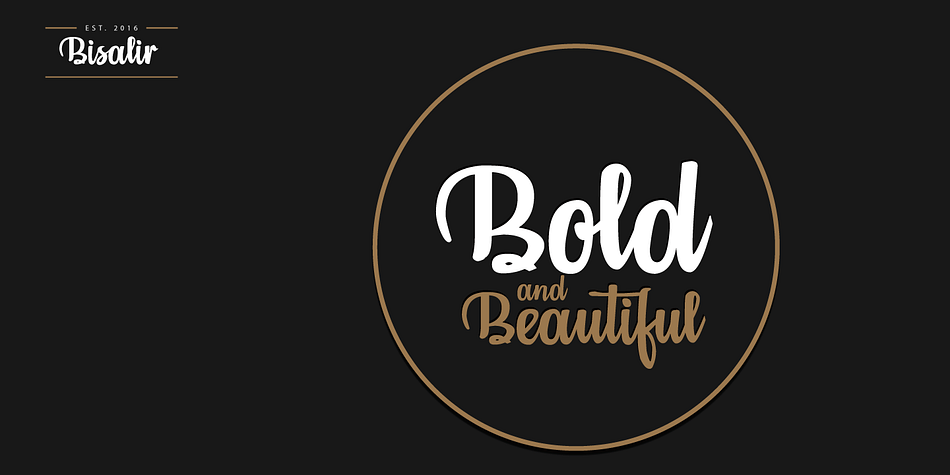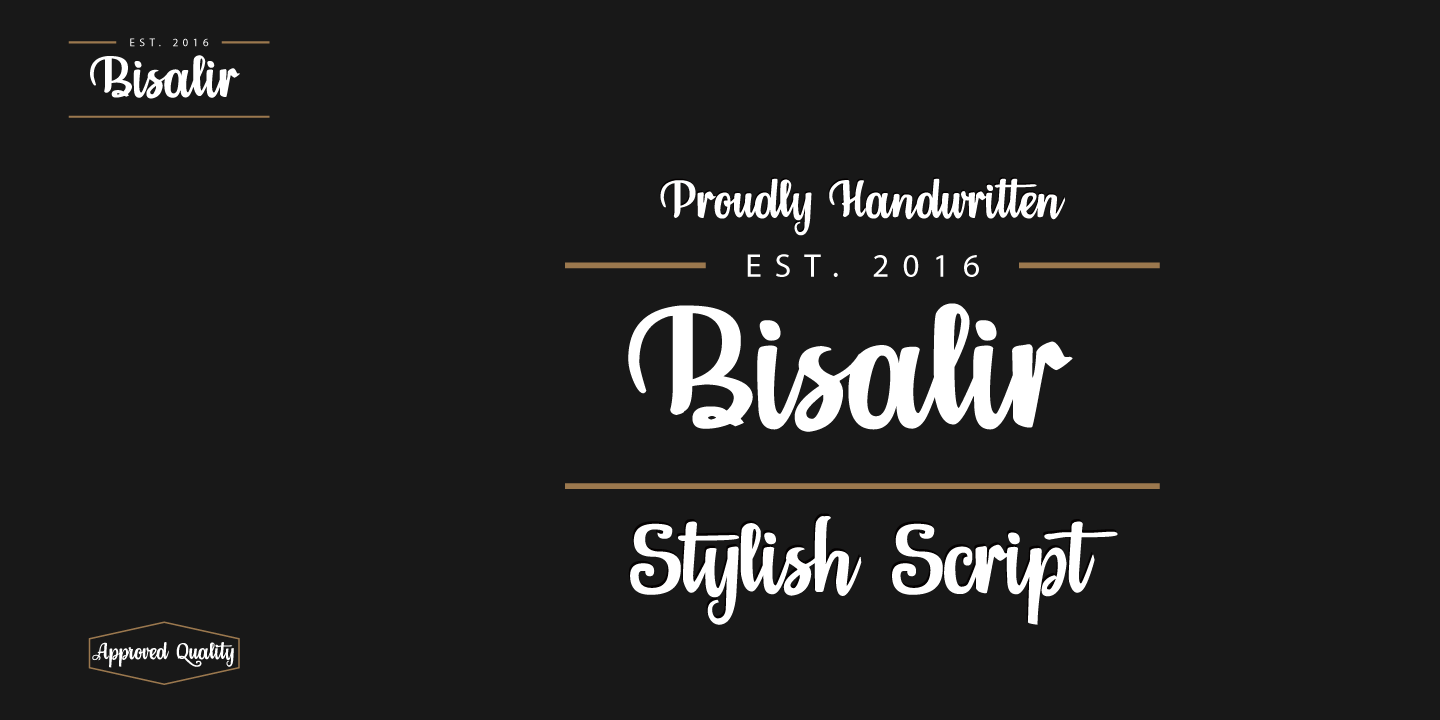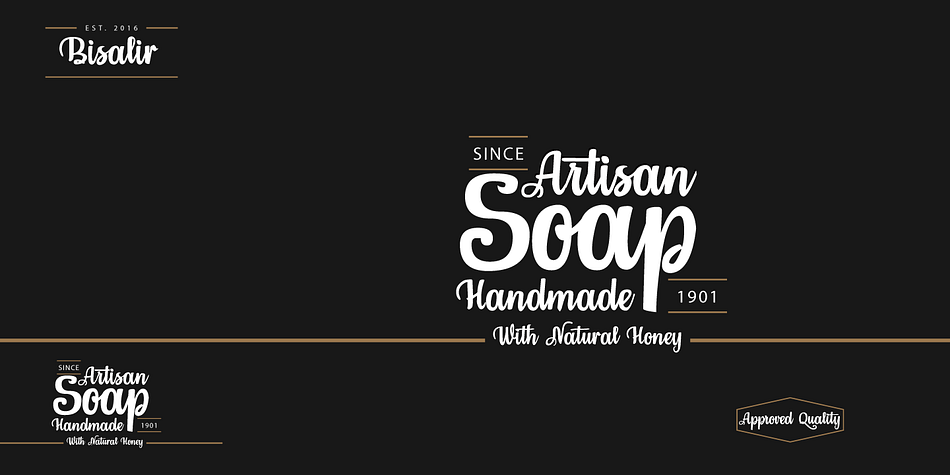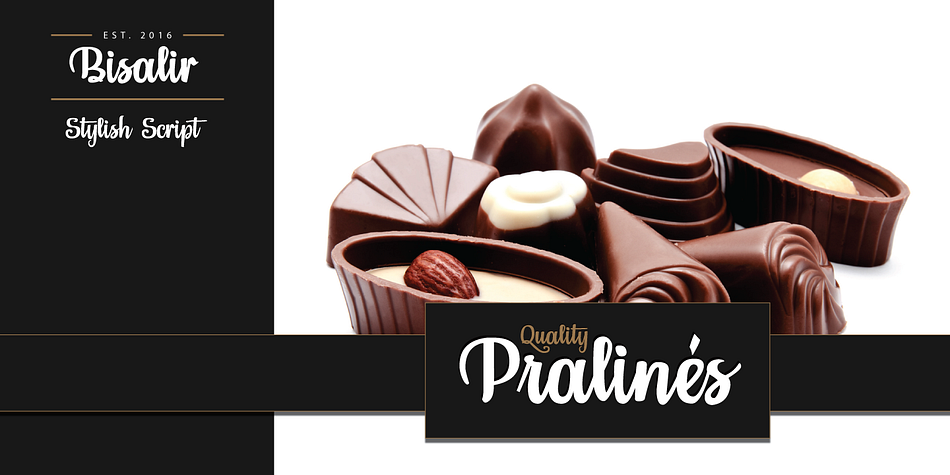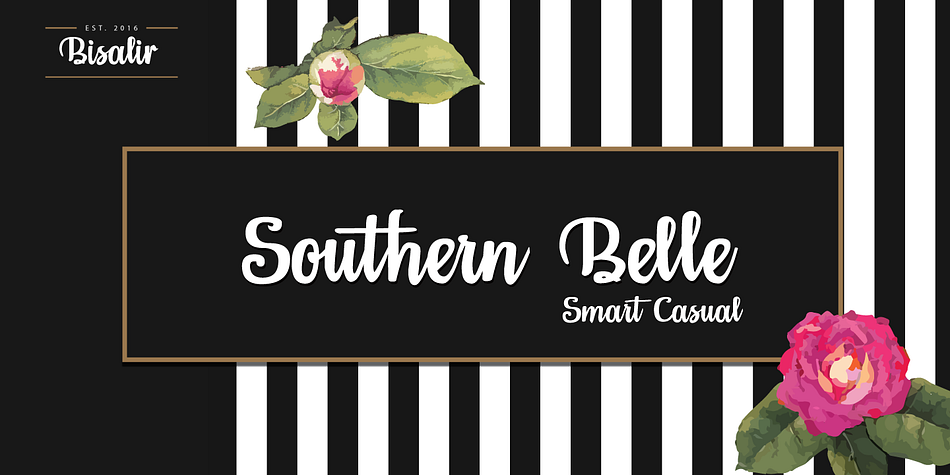
Bisalir is a brush script font published by Aga Silva Fonts.
Bisalir is a beautiful display font, so you can create beautiful headings or signature looks. Open type features 1000+ glyphs including stylistic alternates so you can fine tune your creations (this option works well also for other languages)